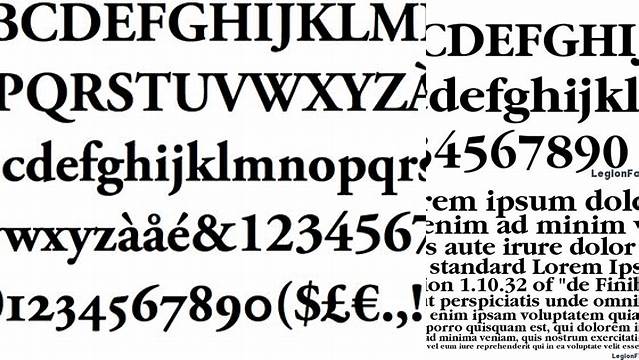
Hey guys! Are you looking for a classic, elegant font that's also super readable? Well, look no further than Garamond Bold! This font family has been a favorite among designers and typographers for centuries, and for good reason. In this comprehensive guide, we'll dive deep into everything you need to know about Garamond Bold, including its history, characteristics, how to download it for free, and how to use it effectively in your projects. Get ready to elevate your designs with this timeless typeface!
What is Garamond Bold? Unveiling the Classic Elegance
Garamond Bold is a variation of the classic Garamond typeface, renowned for its sophisticated and refined appearance. Originating in the 16th century by the French engraver Claude Garamond, the Garamond family is a collection of old-style serif fonts. These fonts are characterized by their graceful curves, high contrast between thick and thin strokes, and subtle serifs, making them ideal for both body text and display use. The bold version, as the name suggests, features a heavier weight, enhancing its impact and readability, making it perfect for headings, titles, and emphasis. It’s like giving your text a little extra oomph without sacrificing the elegance that Garamond is known for. Think of it as the sophisticated older sibling of the regular Garamond, ready to grab your attention without being shouty.
Now, Garamond Bold is not just about aesthetics; it also boasts excellent readability. The design of the letters ensures that they're easily distinguishable from one another, even at smaller sizes. This makes it a great choice for a wide range of applications, from printed materials like books and magazines to digital content like websites and presentations. You'll find it used by many of the world's top brands and publications, and there’s a good reason for it. The enduring popularity of Garamond Bold is proof of its timeless appeal and versatility. Whether you're a seasoned designer or a beginner, understanding and utilizing Garamond Bold can significantly enhance the visual impact of your projects, so this is what makes it the best choice.
History and Characteristics of Garamond Bold
Let's take a little trip back in time, shall we? Claude Garamond, the guy who started it all, was a master engraver back in the 16th century. His original Garamond fonts were incredibly influential, and they set the standard for typography for centuries to come. The bold version, a later addition to the family, was designed to provide emphasis and impact, perfect for headlines, titles, and any text that needs to stand out. It retains all the classic characteristics of the original Garamond, like the graceful curves, varying stroke weights, and elegant serifs, but with a bolder presence. This makes it ideal for when you want to maintain that sophisticated feel but also grab the reader's attention instantly.
Some of the key characteristics of Garamond Bold include its high legibility, making it easy to read even at small sizes. The varying stroke weights add visual interest and dynamism to the text, and the serifs give it a sense of tradition and elegance. The font's slightly condensed nature also helps to save space while maintaining readability. This makes it a practical choice for both print and digital designs. You'll find that the font has a certain warmth and personality, which is why it's used to create a friendly and inviting feel. The design also has a timeless quality, meaning it will not go out of style any time soon. This is super important if you want your designs to look good for years to come.
Using Garamond Bold Effectively: Best Practices
Now that you've got your hands on Garamond Bold, let's talk about how to use it effectively to make your designs pop. Firstly, consider the context. Garamond Bold works best for headlines, subheadings, and any text that needs to draw the eye. Its heavier weight ensures it stands out while still maintaining the elegant feel of the Garamond family. Avoid using it for large blocks of body text, as the bold weight can become tiring to read for extended periods. Instead, use the regular or italic versions of Garamond for body text to maintain readability. Pair Garamond Bold with other fonts strategically. Because it is a classic font, it goes well with other timeless typefaces. The best way is to complement it with a clean, sans-serif font for body text to create a balanced and visually appealing design. This combination will create a clear hierarchy and guide the reader's eye. Think of it like this: the Garamond Bold is the star, and the sans-serif font is the supporting actor, creating a cohesive performance.
Another key aspect is the right size and spacing. Experiment with different font sizes to find the right balance for your design. Ensure that there is enough space around your Garamond Bold headings so they don’t look cramped. Adjust the line spacing and letter spacing (kerning) to ensure that the text is legible and visually pleasing. Careful attention to these details can greatly improve the overall impact of your design. Also, consider the color and background. Garamond Bold often looks great against a variety of backgrounds, but it's always best to choose colors that provide sufficient contrast to ensure readability. Avoid using light text on a light background or vice versa, as this can strain the eyes. Try it out with different color combinations to see what looks best for your project. Play around with it, and see what fits best. This is also why you should use it carefully, as it can create a specific mood.
Garamond Bold in Web Design: Tips and Tricks
Integrating Garamond Bold into your web design can elevate your website's aesthetic, giving it a classic and sophisticated look. To ensure optimal performance, it's essential to use the right file formats for the web. Web Open Font Format (WOFF) and WOFF2 are the most recommended formats, as they offer excellent compression and are supported by all modern browsers. When embedding Garamond Bold on your website, you have several options. You can download the font files and upload them to your server, then use CSS @font-face rules to specify the font. Alternatively, you can use a web font service like Google Fonts or Adobe Fonts, which provide easy-to-use code snippets.
Conclusion: Embrace the Timeless Appeal of Garamond Bold
In conclusion, Garamond Bold is more than just a font; it's a statement. Its timeless elegance, excellent readability, and versatility make it a powerful tool for designers of all kinds. Whether you're creating a website, designing a book, or crafting marketing materials, Garamond Bold can help you achieve a professional and sophisticated look. By understanding its history, characteristics, and how to use it effectively, you can leverage the font's strengths to enhance your designs and make them truly memorable. So go ahead, explore the possibilities, and experience the enduring appeal of Garamond Bold!